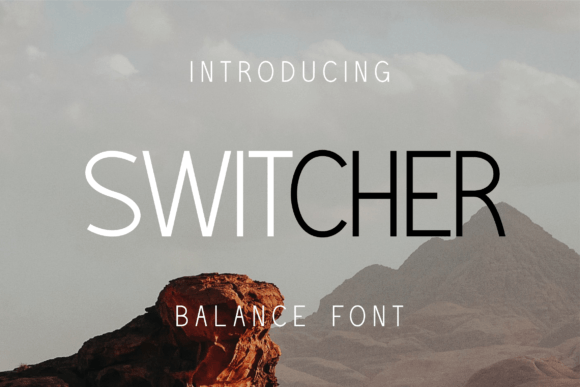
Get ready to turn your financial CV into an eye-catching masterpiece with Switcher Font, the ultimate choice for those seeking a font that exudes elegance, sophistication, and professionalism. Crafted by the ingenious ponuppo, this sans serif font oozes minimalism and clarity, ensuring your CV stands out from the crowd.
With its clean and crisp lines, Switcher Font effortlessly complements any design aesthetic, making it the perfect choice for book covers, magazines, social media posts, invitations, and countless other creative projects. Its versatility knows no bounds, allowing you to express your ideas with flair and impact.
Step into the world of modern elegance and let Switcher Font elevate your designs to new heights. Its timeless appeal and readability make it the perfect choice for those seeking a font that leaves a lasting impression.
Enhance your financial CV with Switcher Font today and watch as it seamlessly blends sophistication and clarity. Experience the power of a font that captivates and engages, leaving a lasting impression on potential employers. Embrace the future of font design and let Switcher Font guide you to success.